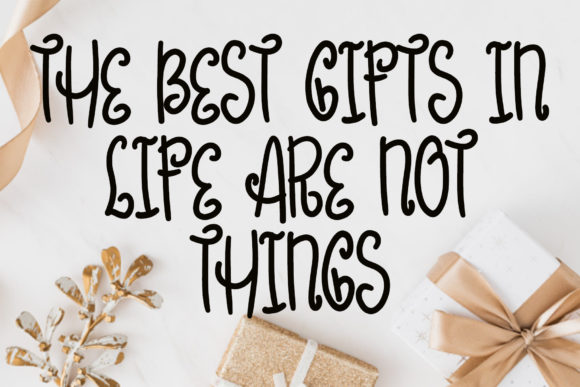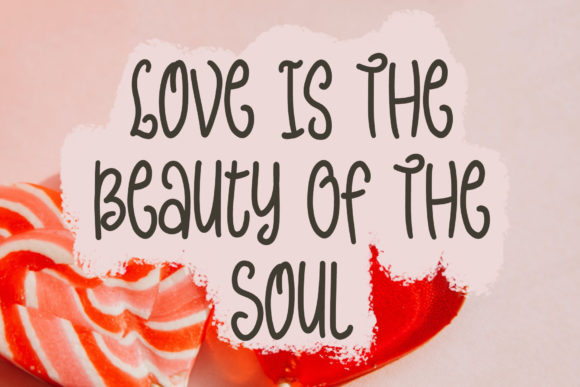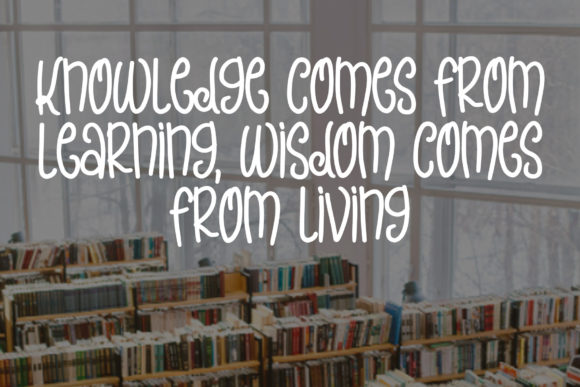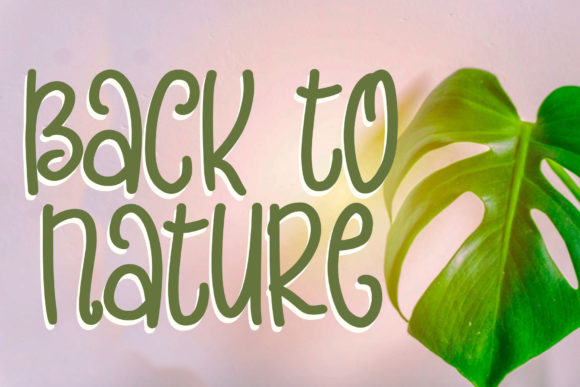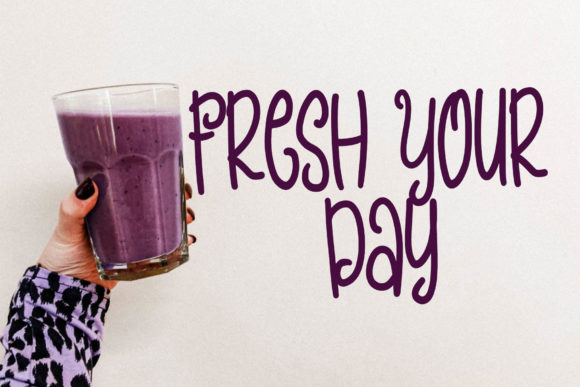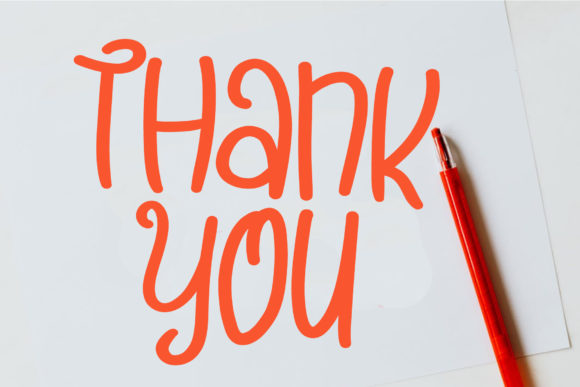
Introducing Christmas Sunshine Font: The Perfect Addition to Your Holiday Designs
Are you looking for a font that will add a touch of magic to your holiday designs? Look no further than Christmas Sunshine Font, a whimsical and unique display font that’s sure to bring a smile to everyone’s face. With its perfect blend of trendiness and playfulness, this font is ideal for crafty designers and crafters who want to create eye-catching projects that stand out from the crowd.
What Makes Christmas Sunshine Font So Special?
Christmas Sunshine Font is a one-of-a-kind display font that’s specifically designed to add a touch of festive fun to your designs. Its unique and original look is perfect for a wide range of crafty ideas, from letterheads and titles to stationery and more. Whether you’re creating holiday cards, gift tags, or social media graphics, this font is sure to make your projects shine.
Key Features of Christmas Sunshine Font
- Whimsical and Unique Design: Christmas Sunshine Font features a playful and original design that’s sure to capture the spirit of the holiday season.
- Trendiness: This font has the perfect amount of trendiness, making it ideal for designers and crafters who want to create modern and stylish projects.
- Versatility: Christmas Sunshine Font can be used for a wide range of projects, from letterheads and titles to stationery and more.
Christmas Sunshine Font is perfect for designers and crafters who want to add a touch of holiday cheer to their projects. Whether you’re creating professional-looking designs or fun and playful crafts, this font is sure to inspire your creativity. With its unique and original look, Christmas Sunshine Font is ideal for:
- Holiday Cards and Invitations: Create eye-catching holiday cards and invitations that will make your friends and family smile.
- Gift Tags and Wrapping: Add a personal touch to your gifts with custom gift tags and wrapping that features Christmas Sunshine Font.
- Social Media Graphics: Create festive and engaging social media graphics that will make your followers feel merry and bright.
- Stationery and Letterheads: Add a touch of holiday cheer to your stationery and letterheads with Christmas Sunshine Font.
Tips for Using Christmas Sunshine Font
Here are a few tips for using Christmas Sunshine Font in your designs:
- Experiment with Colors: Try pairing Christmas Sunshine Font with a range of festive colors, from bright reds and greens to metallic golds and silvers.
- Mix and Match Fonts: Combine Christmas Sunshine Font with other fonts to create a unique and eye-catching look.
- Play with Sizes: Experiment with different font sizes to create visual interest and hierarchy in your designs.
| Font Name | Christmas Sunshine Font |
| Author | Ansart |